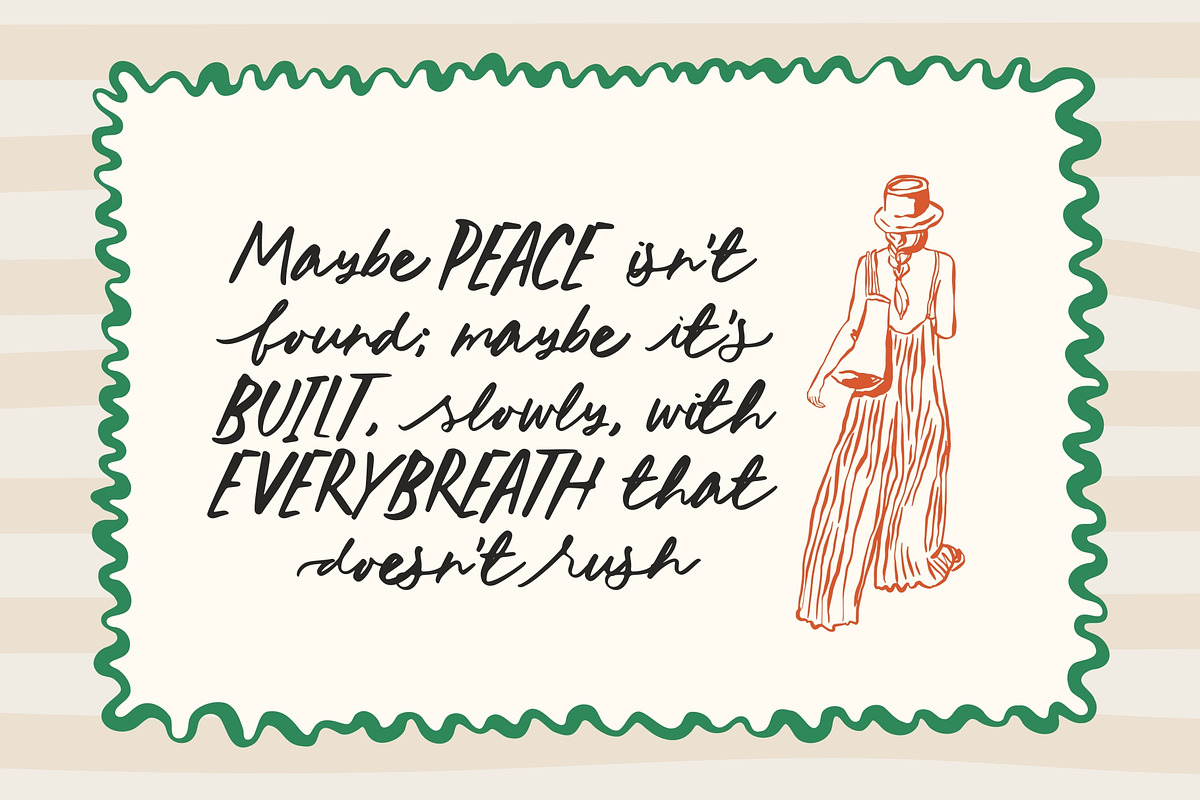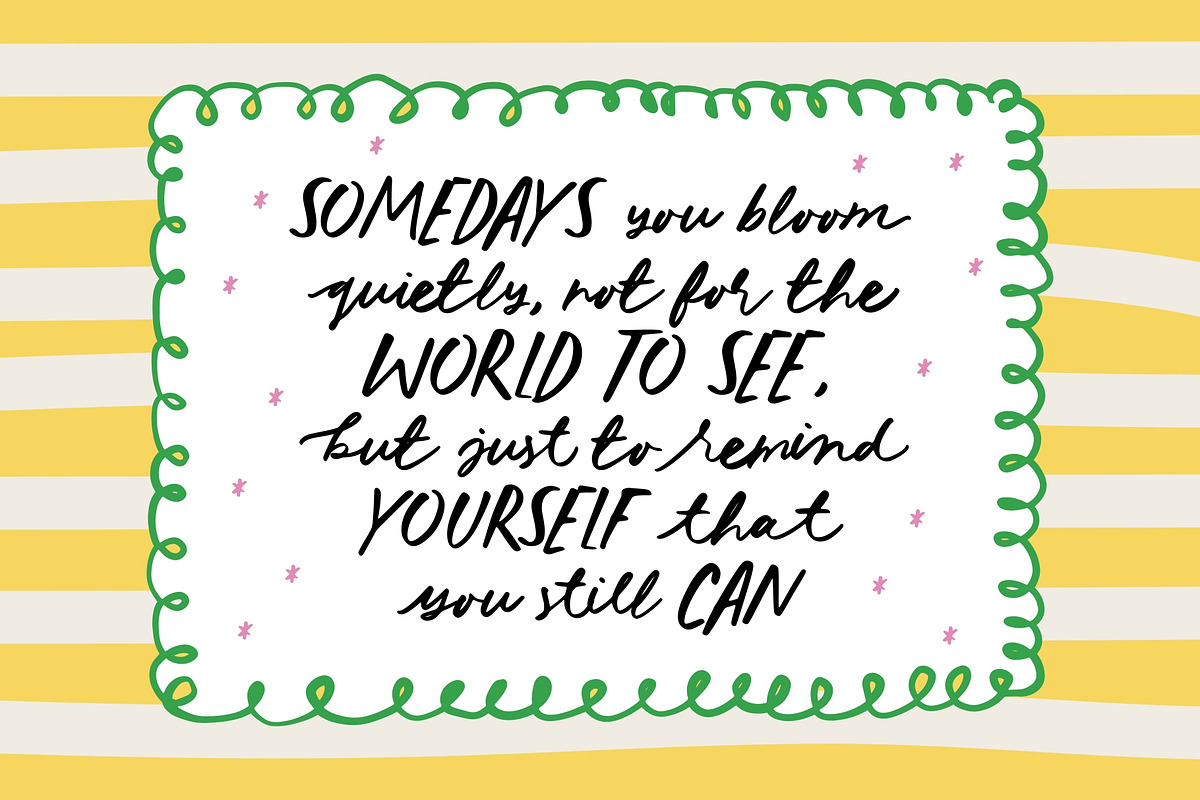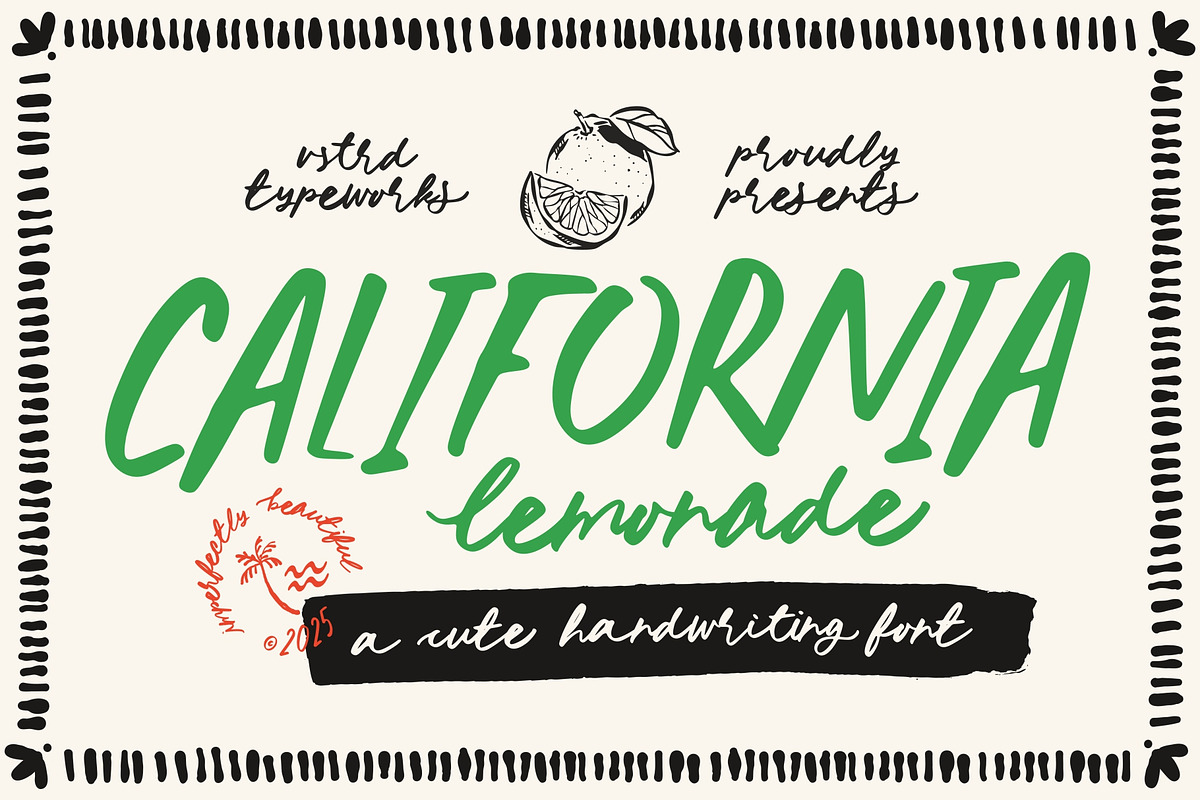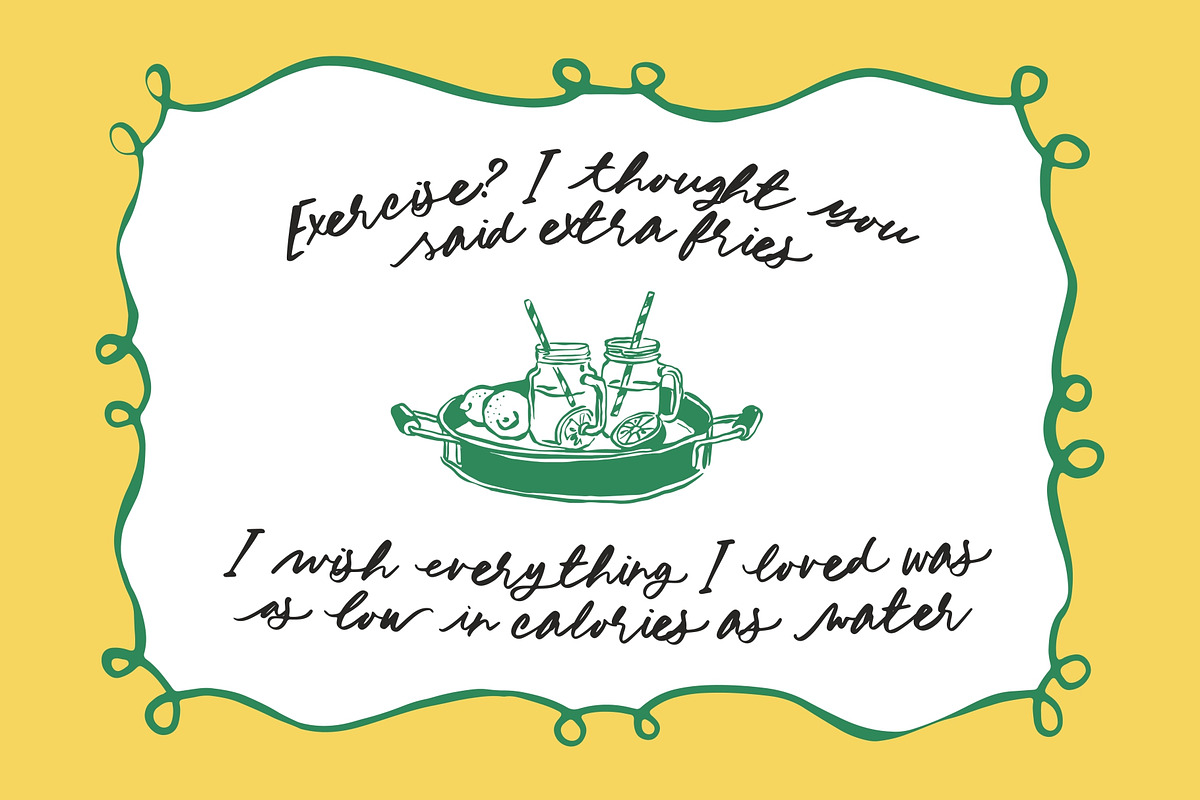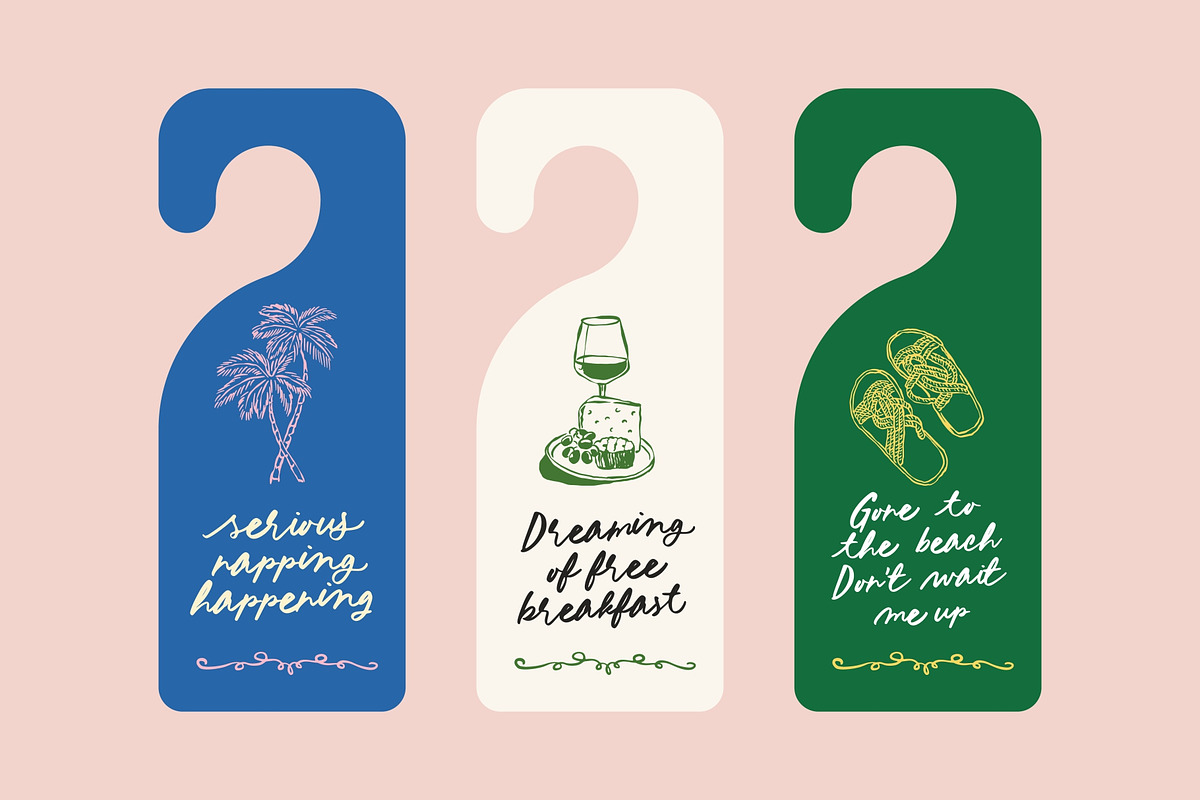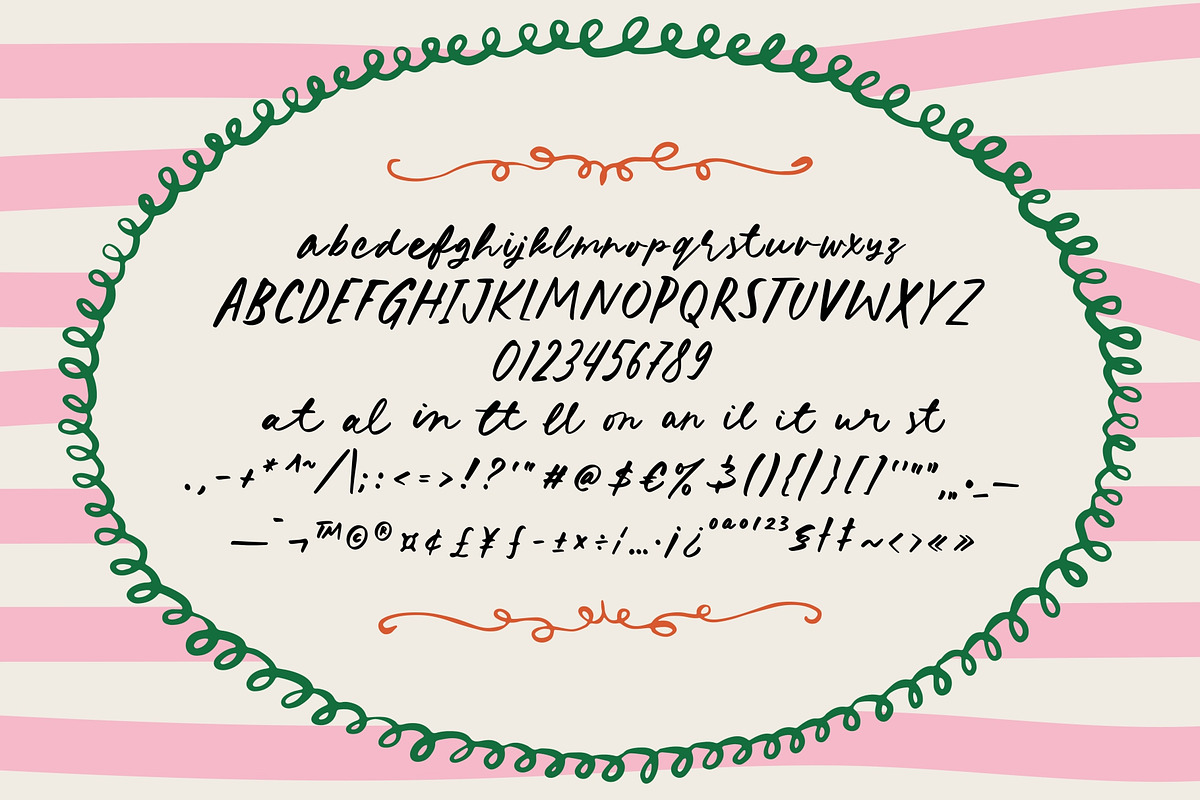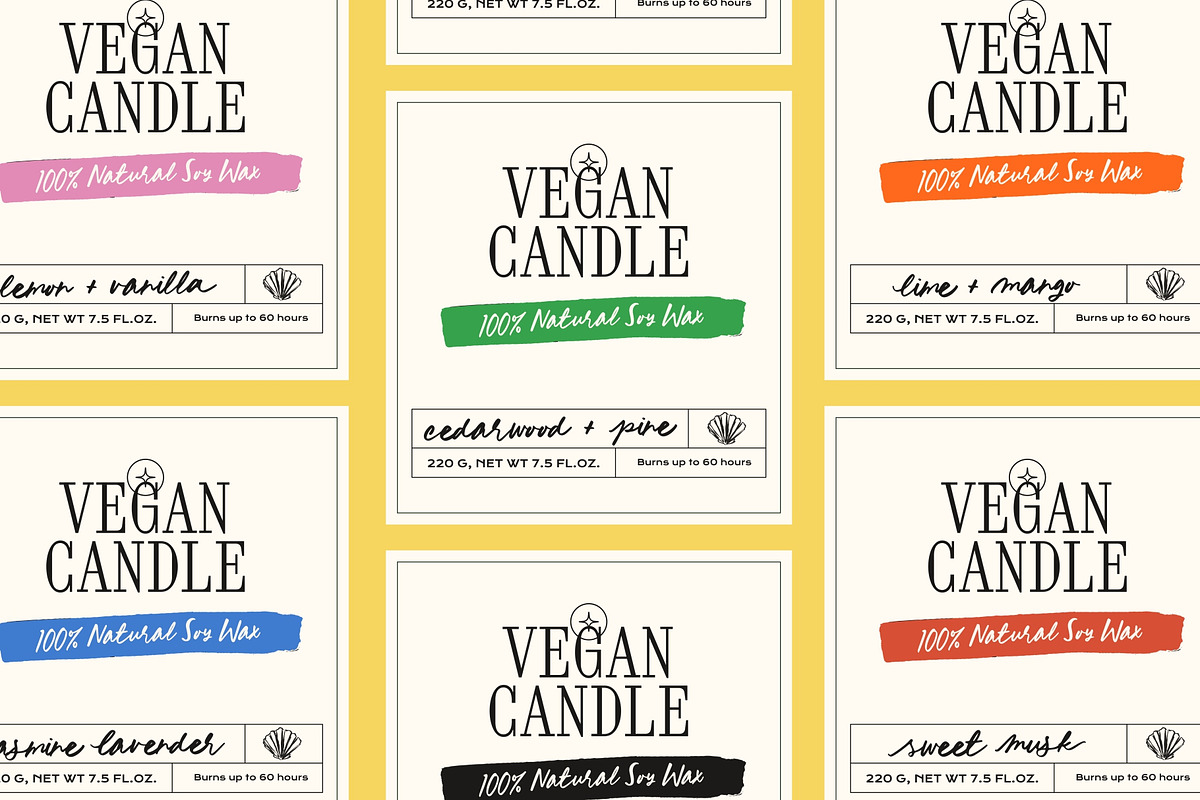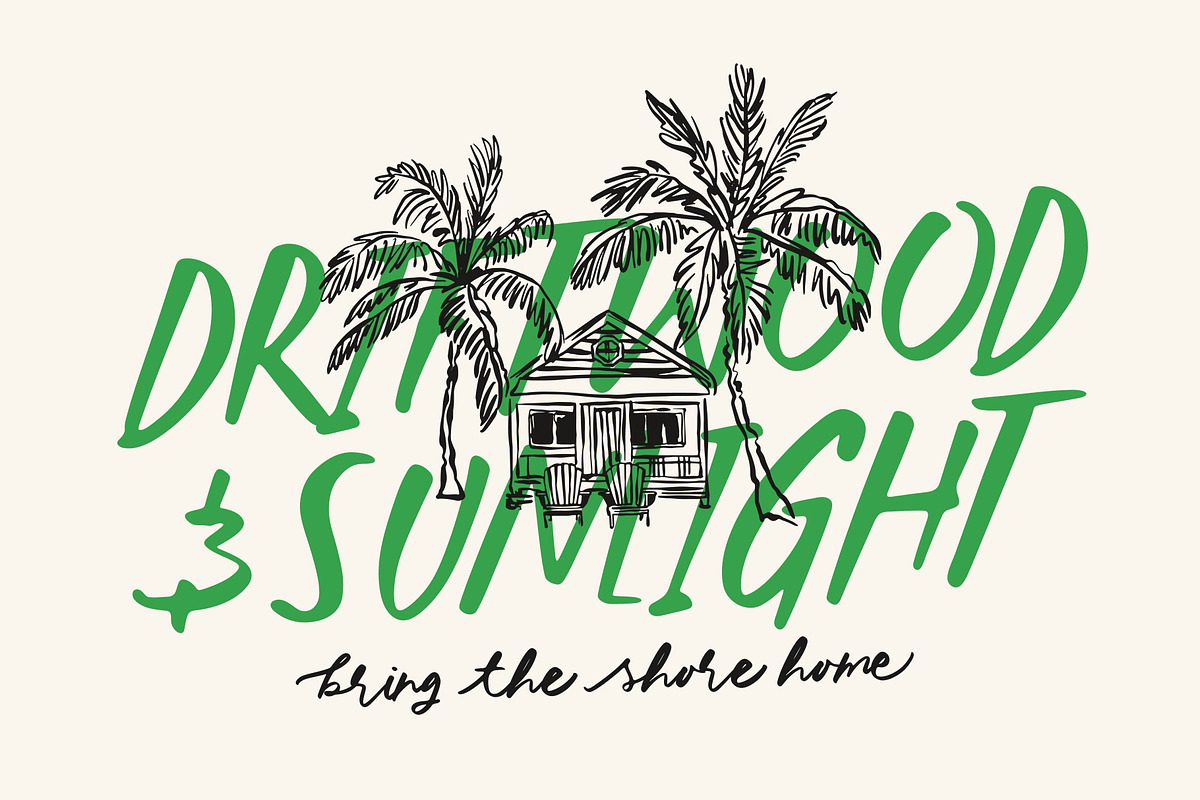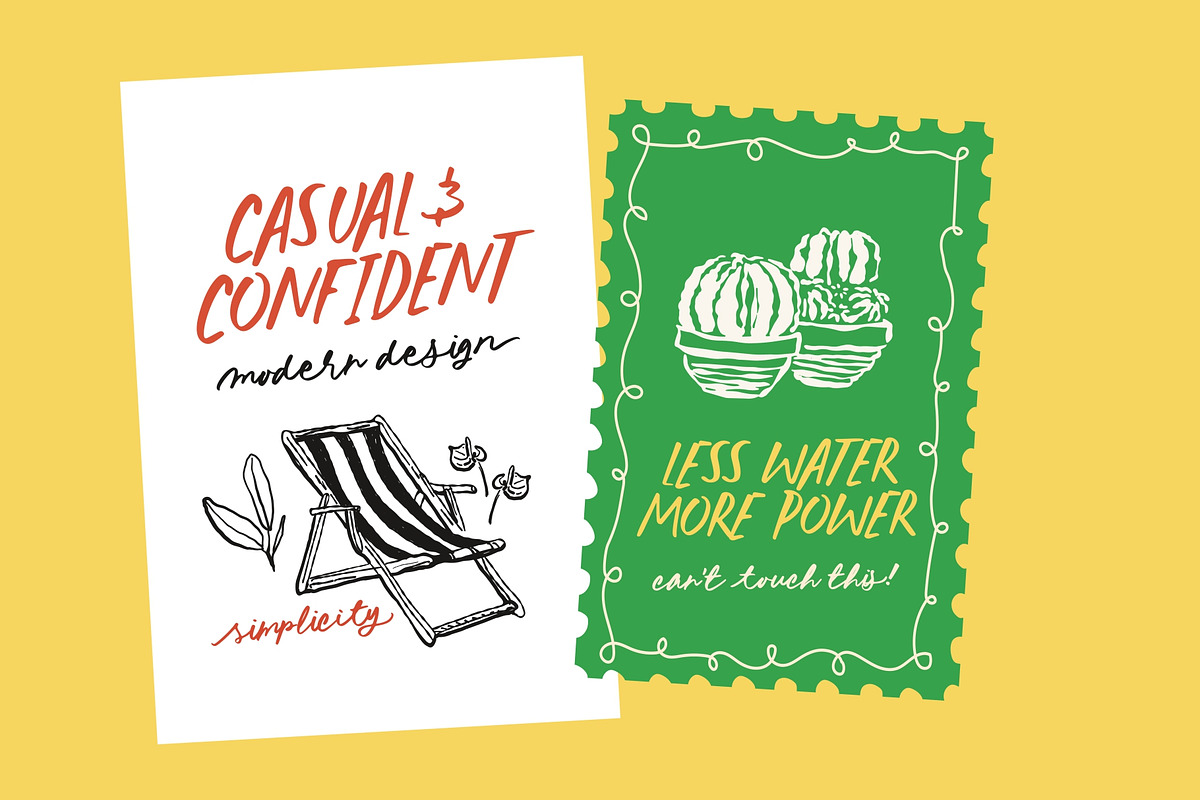
California Lemonade - Cute Font
California Lemonade is a cute handwriting font with a warm, casual, and handmade feel. Inspired by sunny days and handwritten notes, it’s perfect for branding, quotes, packaging, and lifestyle designs. Friendly, relaxed, and full of charm. This font adds a soft human touch to every word.
- All Caps Uppercase & Lowercase